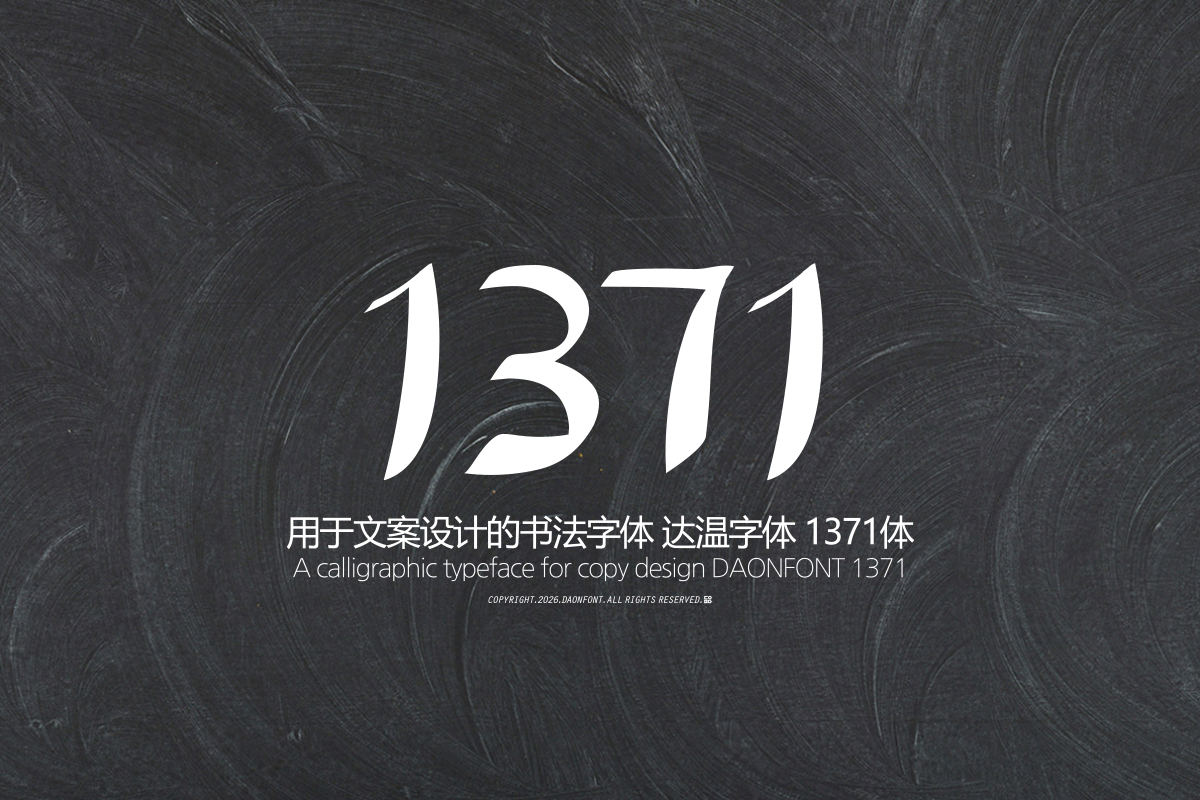
DAON 1371(M)
DaonFont '1371' is a calligraphy-style font that captures the free rhythm and balance characteristic of calligraphy, conveying a comfortable and warm atmosphere by highlighting the naturally flowing handwriting feel and distinctive stroke flow.